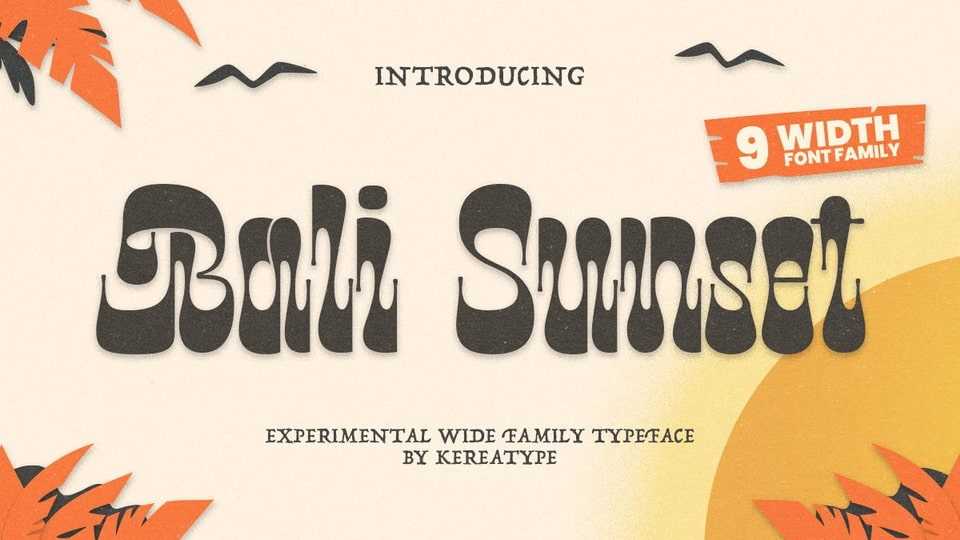
Download Bali Sunset font, an experimental and unique display font with reverse contrast. The organic feel of Bali Sunset evokes a psychedelic vibe that you can use to take your designs to a new level.
Designer: Kereatype Studio